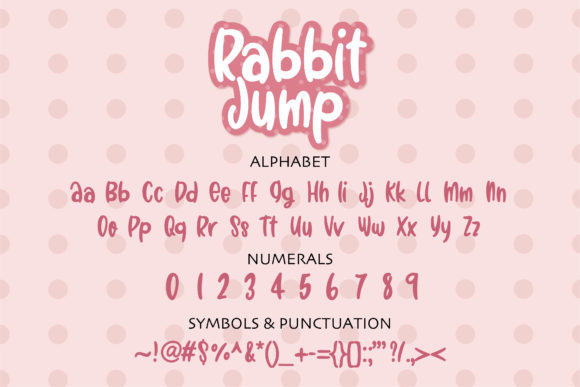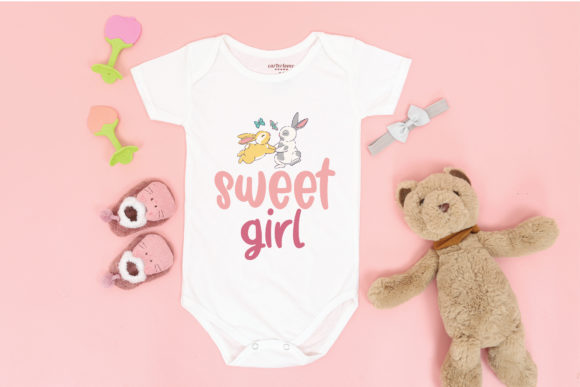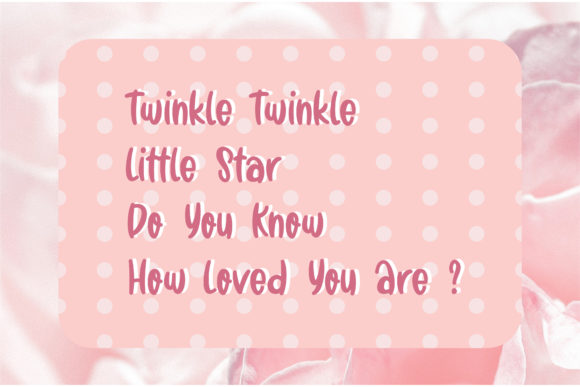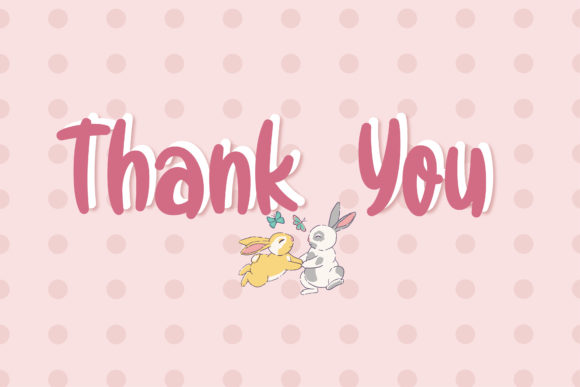
Introduction to Rabbit Jump Font
Rabbit Jump is a cute and flexible handwritten font.
Its natural and unique style makes it incredibly fitting to a large pool of designs Have fun with this beautiful font and explore its endless variations.
Key Features of Rabbit Jump Font
Why Choose Rabbit Jump Font?
Rabbit Jump Font offers exceptional quality and versatility, making it a valuable addition to your design toolkit. Whether you’re creating for personal projects or commercial use, Rabbit Jump Font delivers professional results.